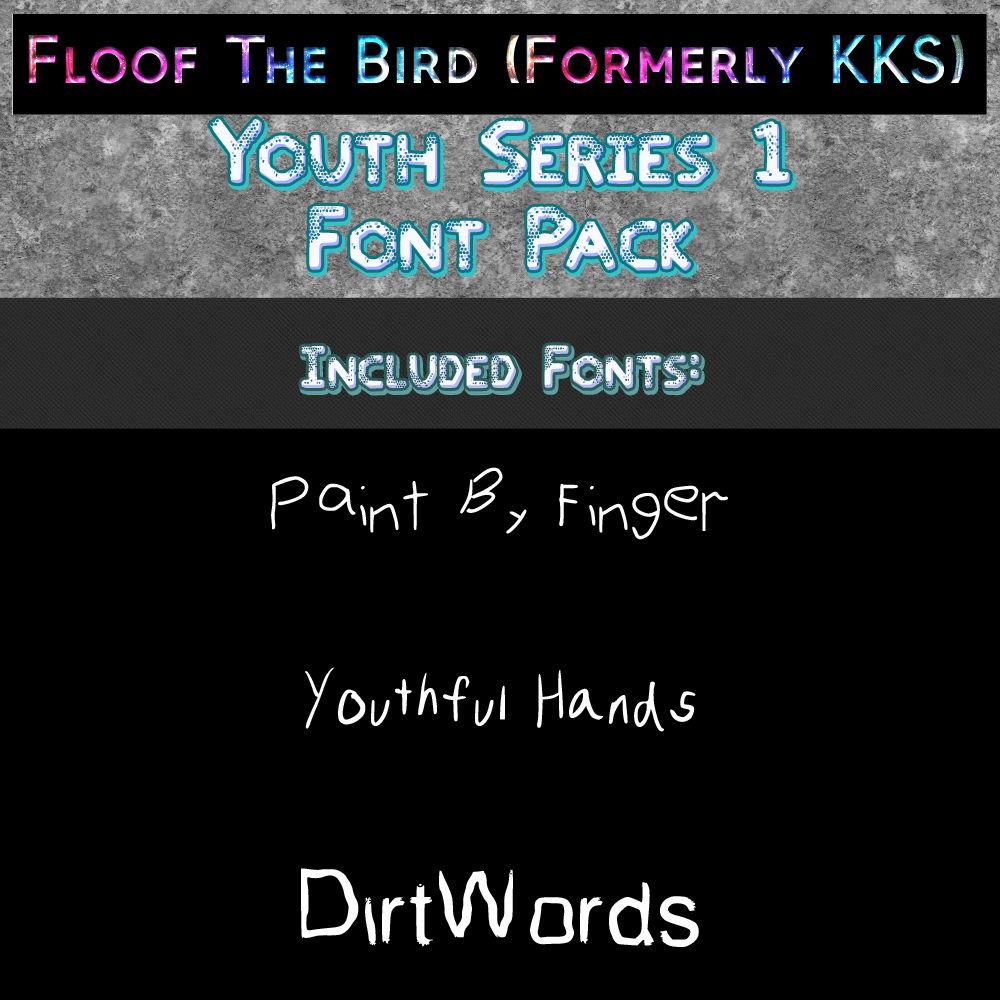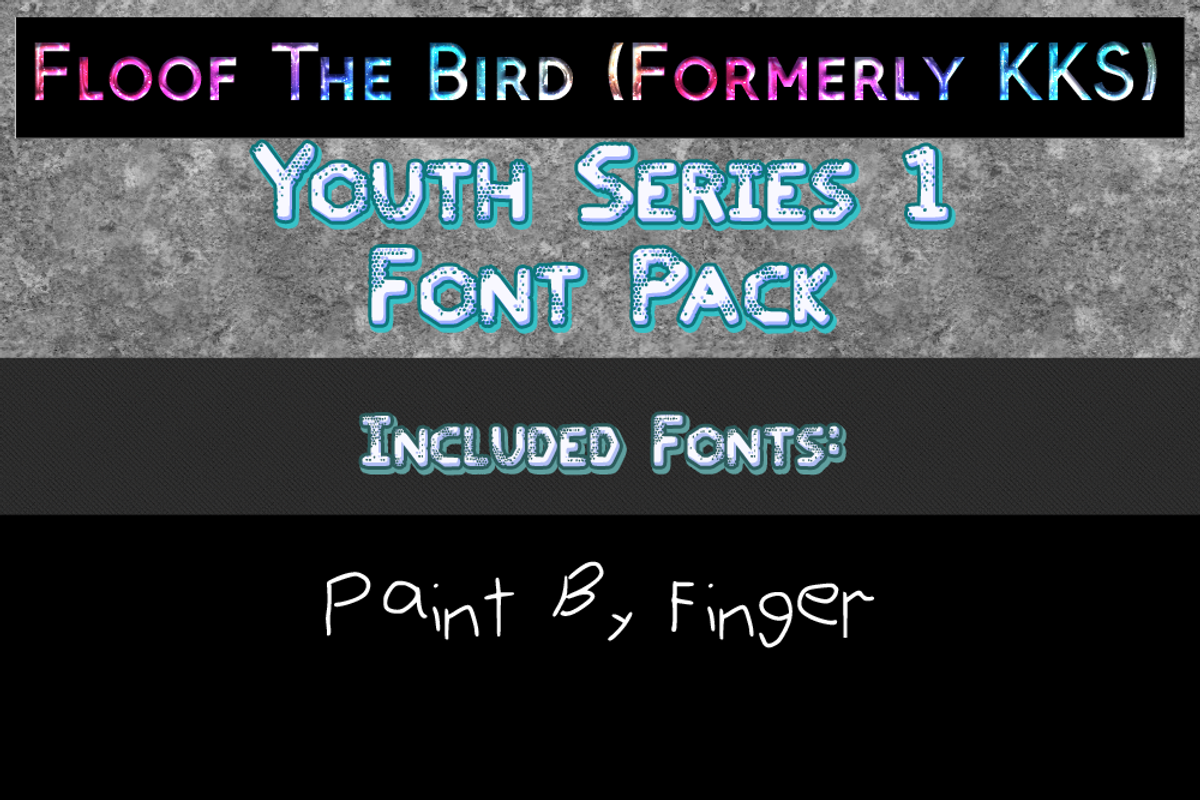
Youth Series 1 font pack by FloofTB
This pack includes 3 fonts in both Opentype and Truetype formats. When you need messy, rushed or childlike type, this fonts have you covered!